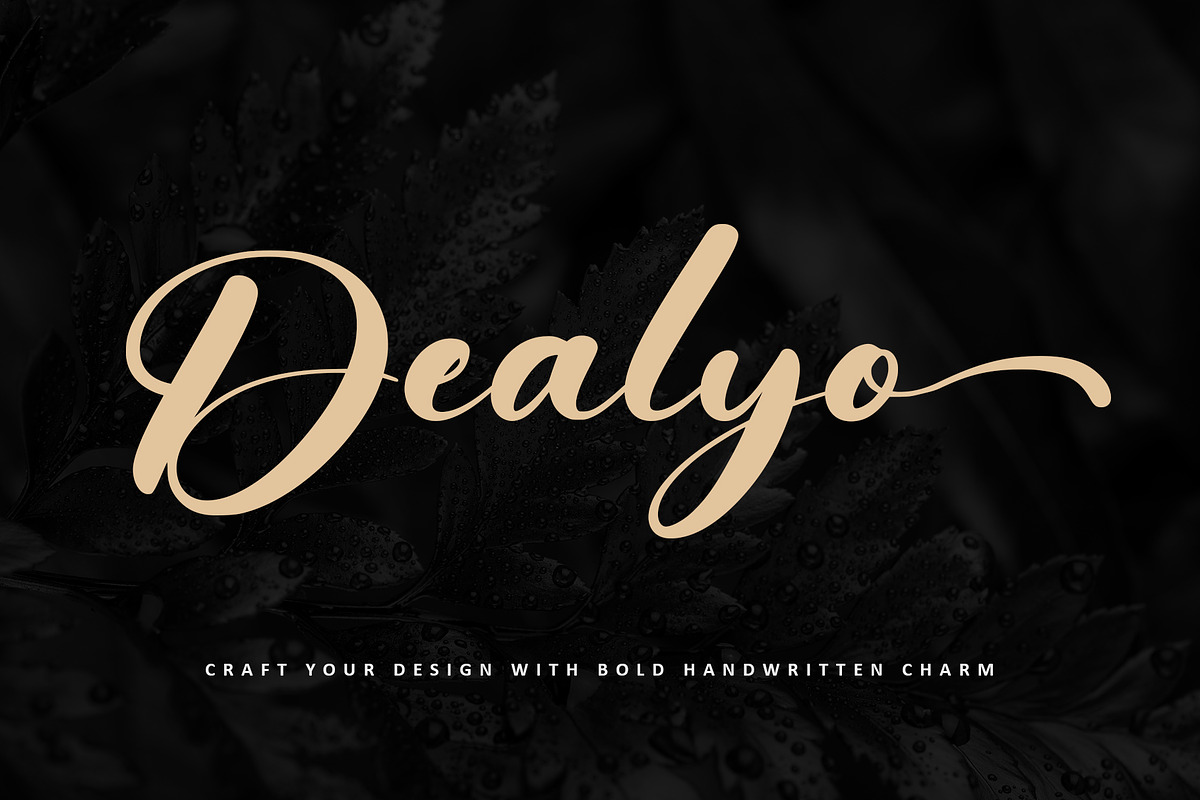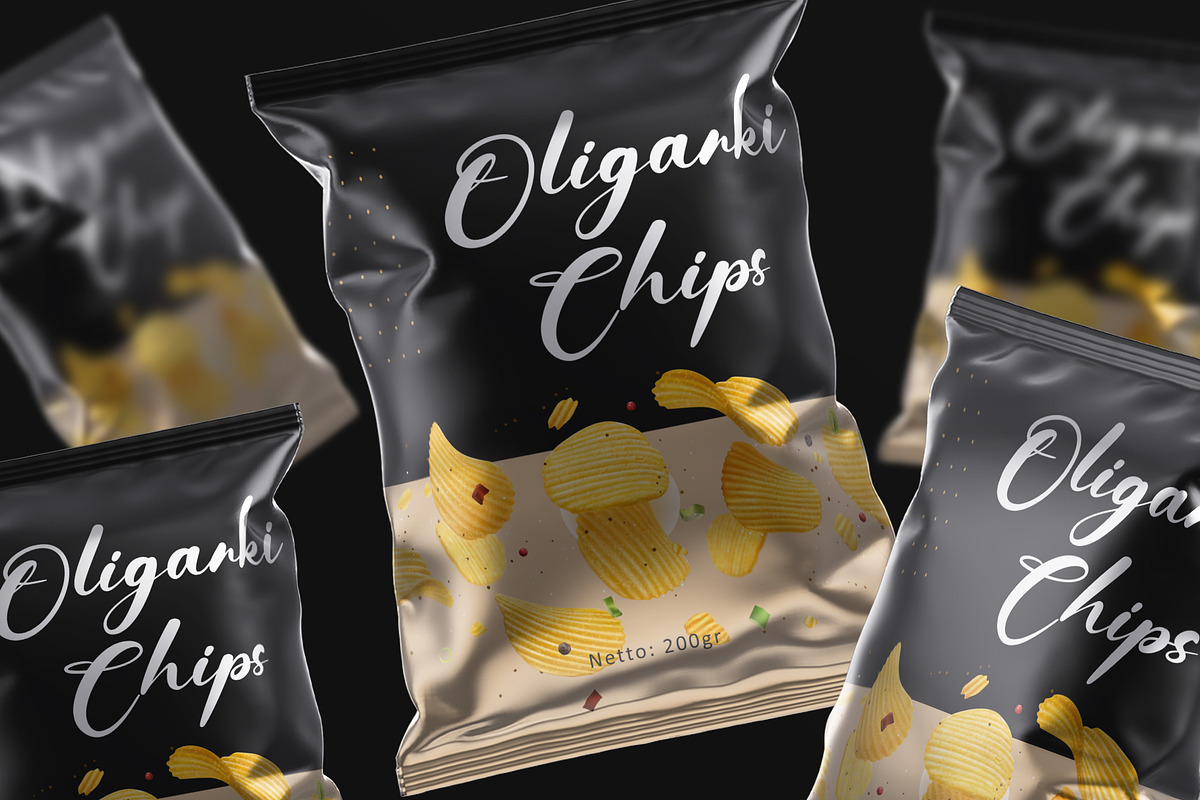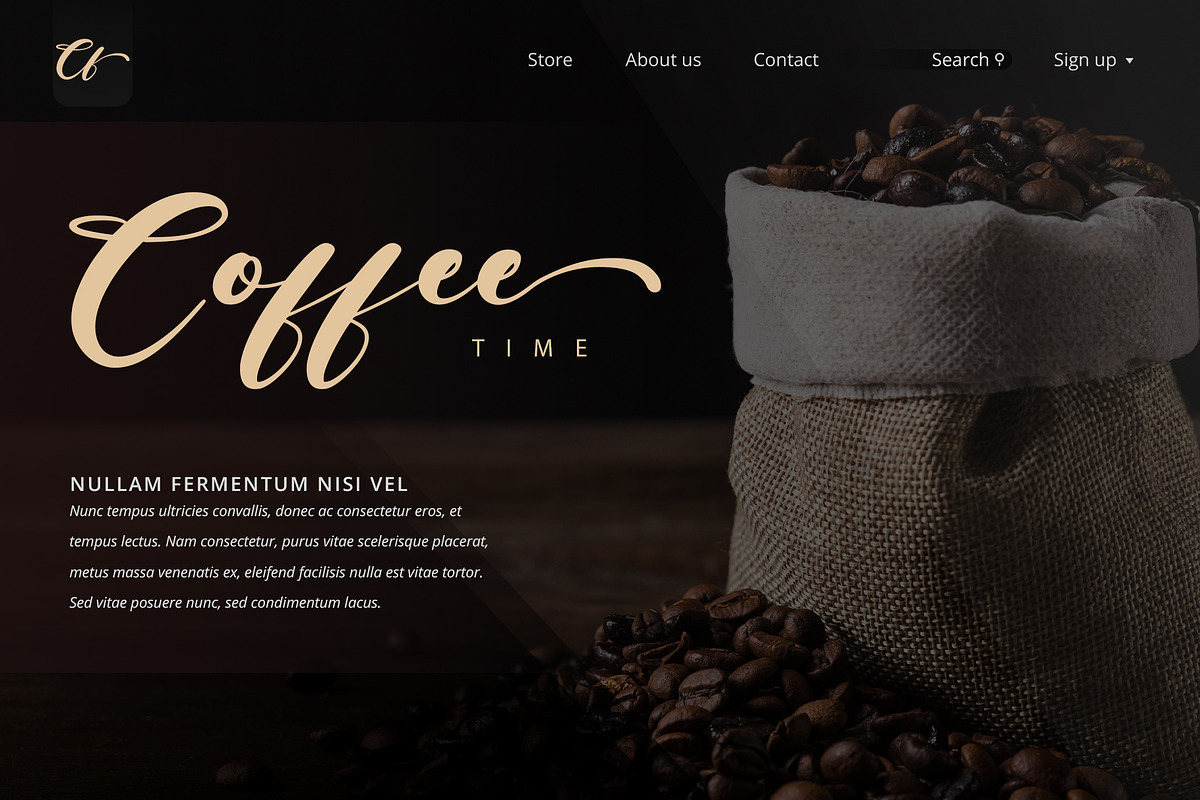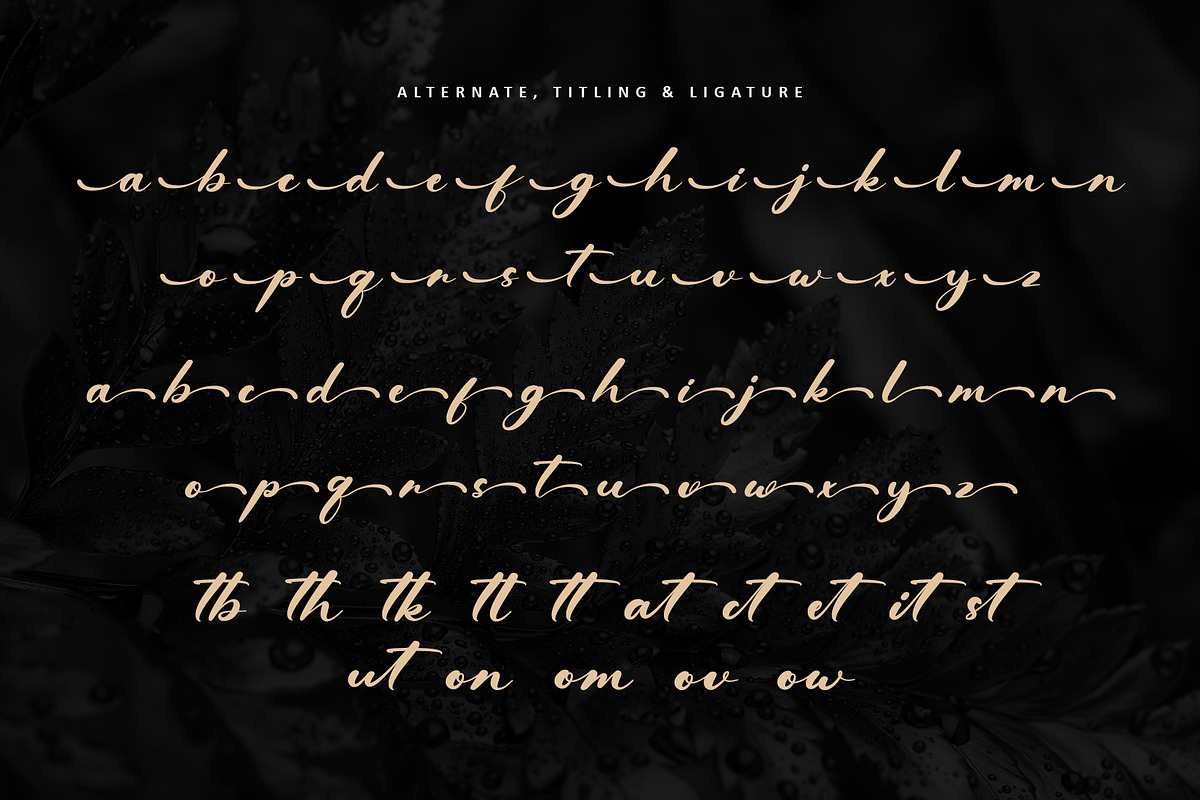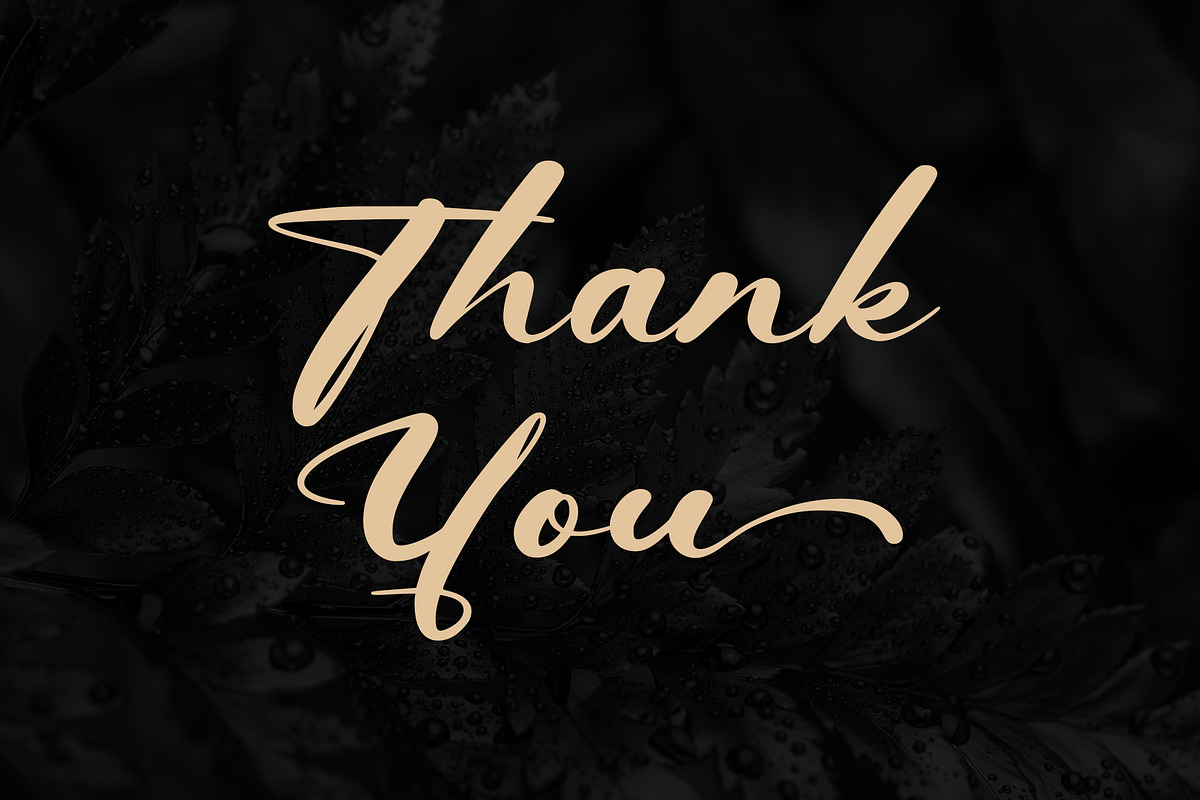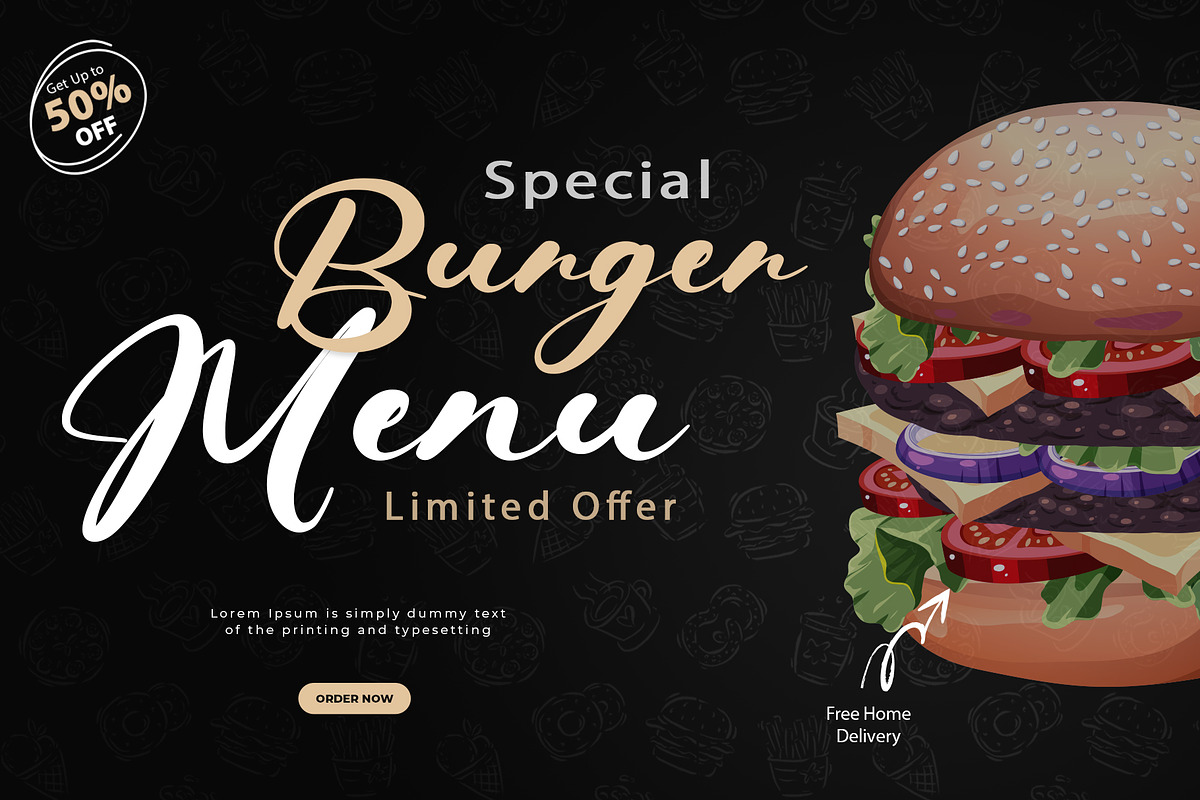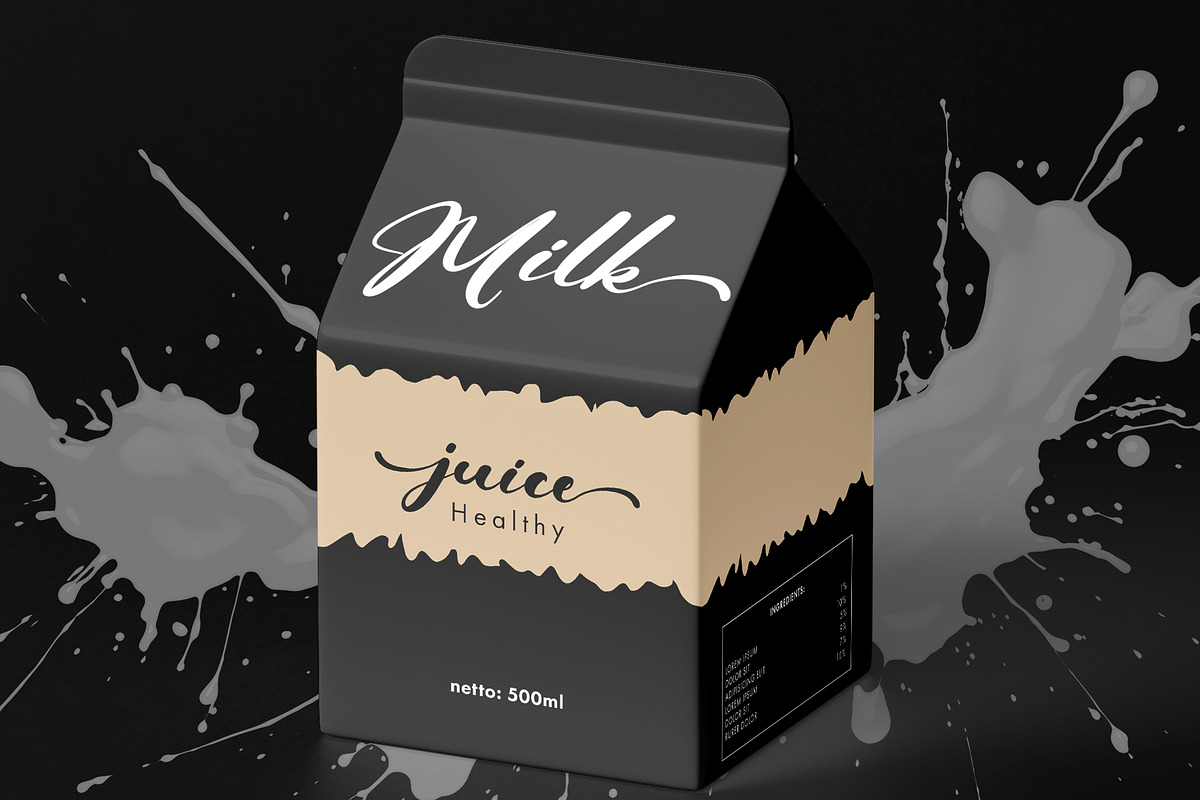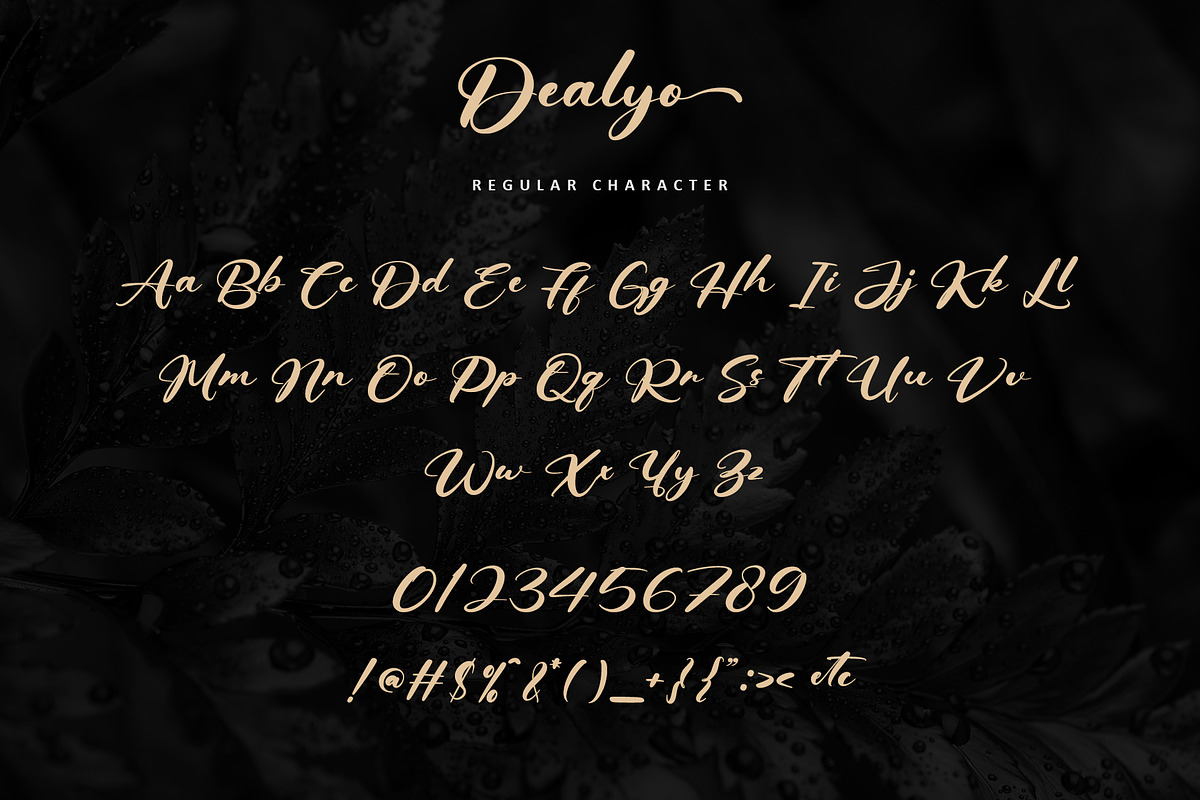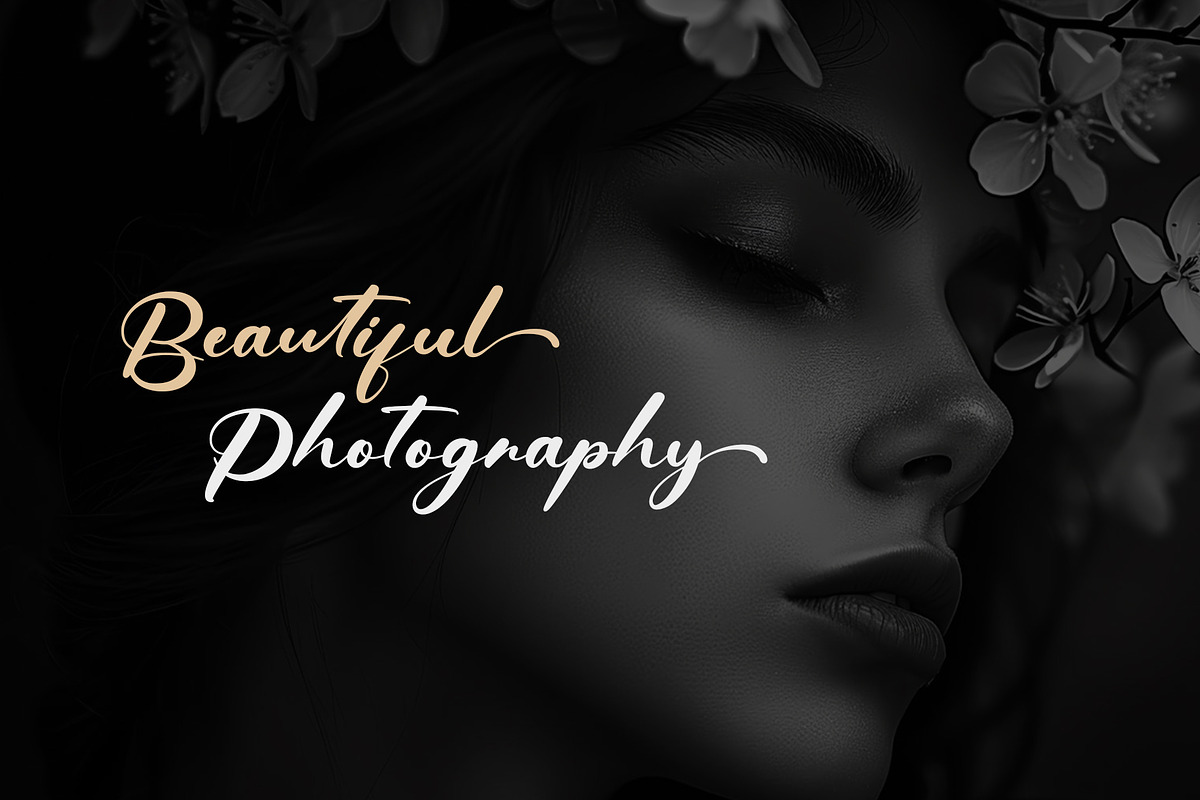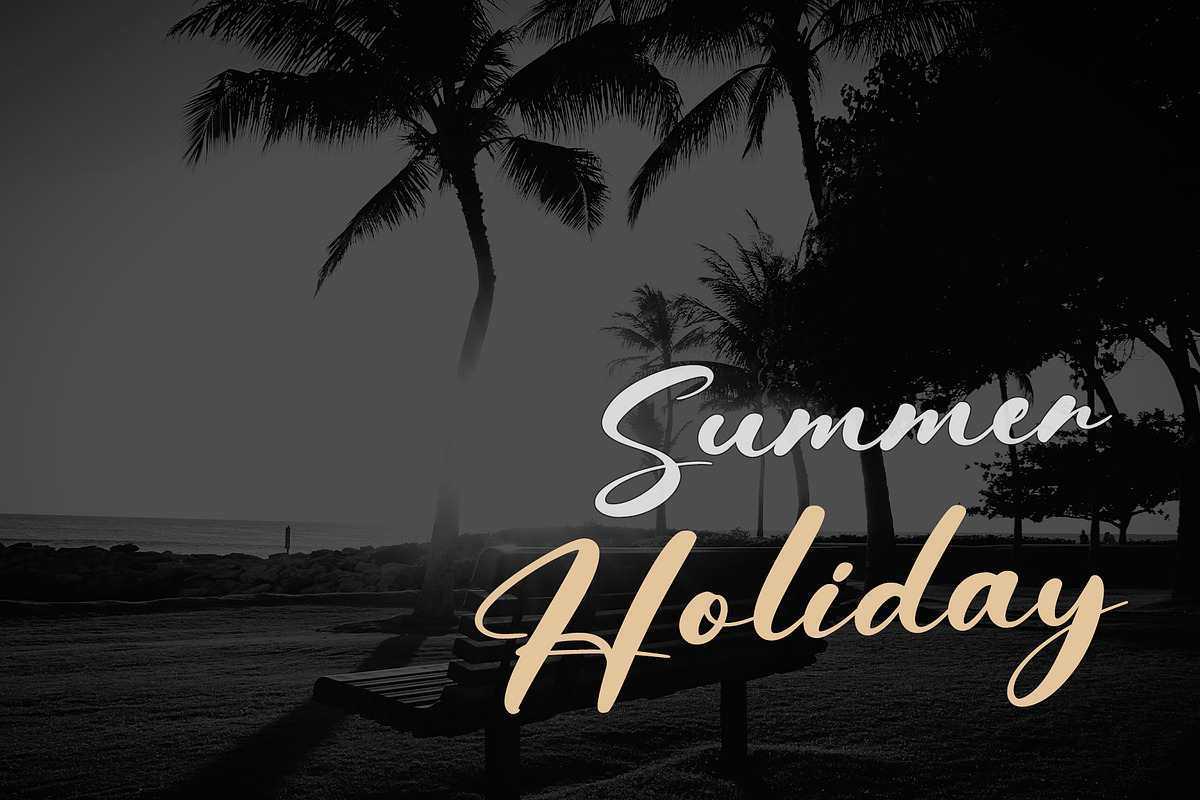
Dealyo
Step into the enchanting world of Dealyo, where boldness meets whimsy in this handwritten font. Perfect for posters, branding, packaging, or any creative project needing a personal touch, Dealyo adds a unique flair. Its PUA encoding grants access to a variety of glyphs and swashes, ensuring exceptional outcomes for your designs. Embrace the rustic charm and let Dealyo elevate your creations with its bold elegance.
Many Features:
- Support multilingual; ä ö ü Ä Ö Ü ß ¿ ¡
- lowercase and uppercase letters
- Alternate, titling & ligature